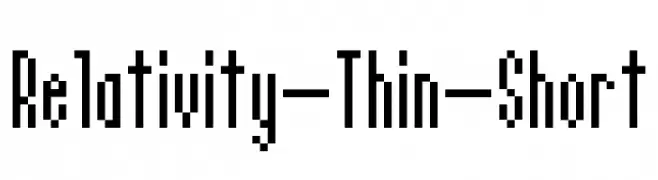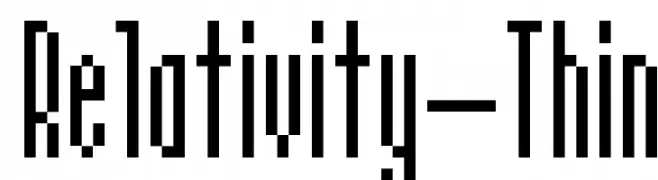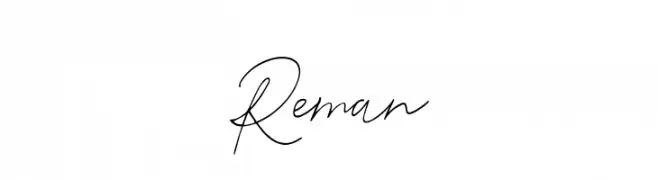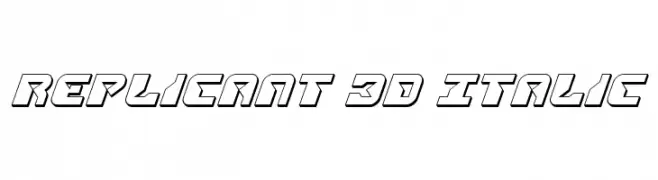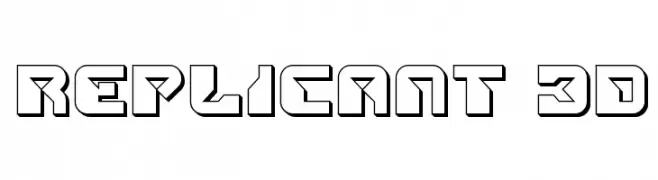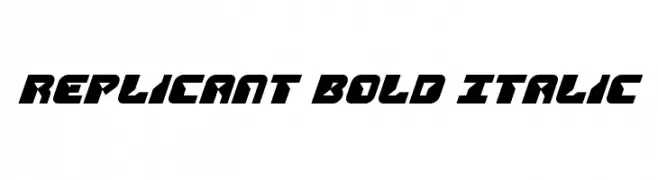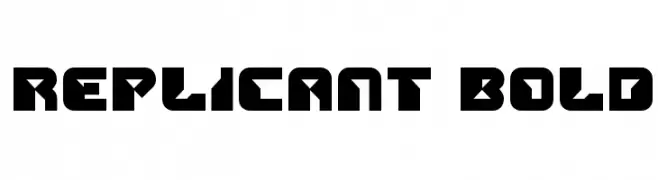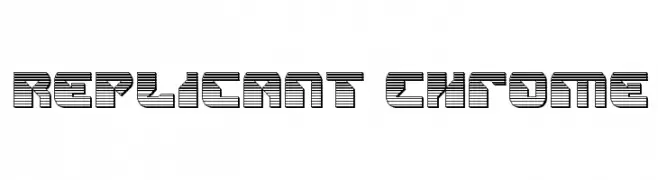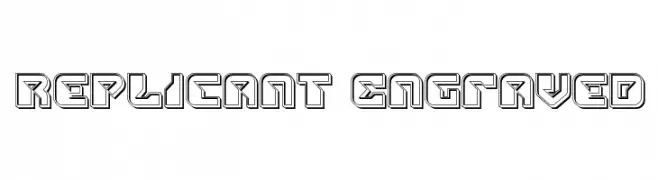
A modern, condensed font with thin, elongated strokes and a futuristic style.
A geometric, condensed font with a modern, digital aesthetic.
A graceful script font with fluid, handwritten-style characters.
A bold, 3D geometric font with a futuristic and tech-inspired design.
A bold, 3D italic font with a futuristic, geometric style.
A bold, futuristic font with geometric shapes and sharp angles.
A bold, italicized font with a futuristic and angular design.
A futuristic, striped font with a bold, geometric design.
A futuristic italic font with bold, striped characters and a dynamic, modern style.
A bold, futuristic font with an engraved, three-dimensional effect.